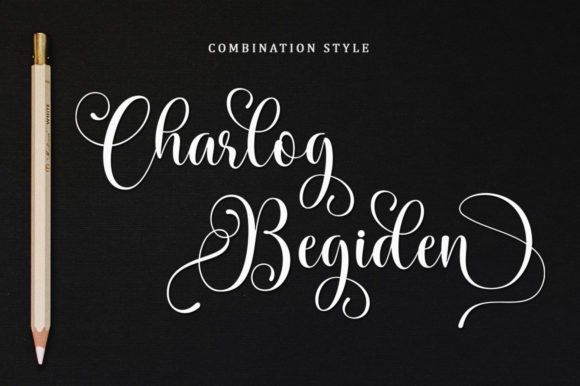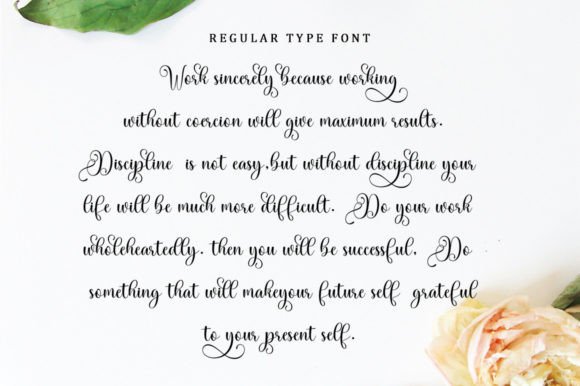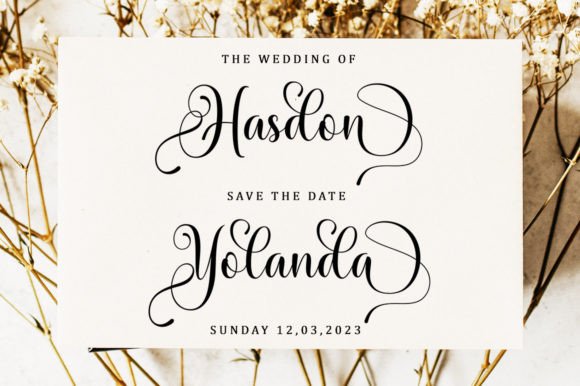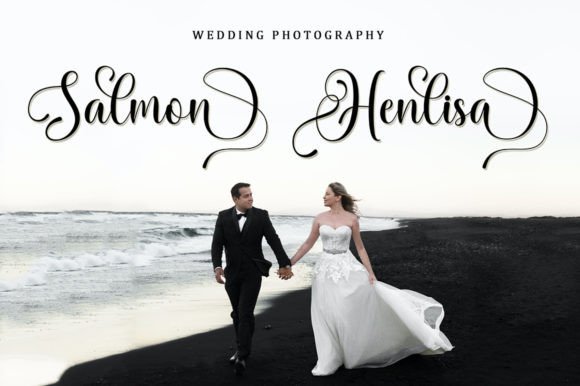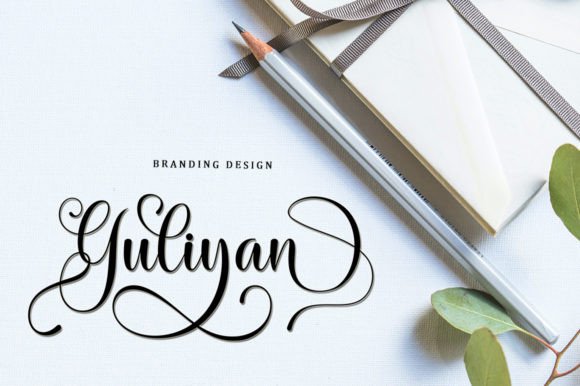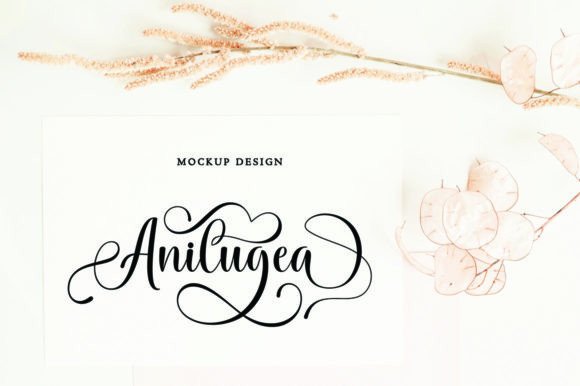
Discover the Elegance of Andigen Font: Elevate Your Designs with a Timeless Handwritten Style
Are you on the hunt for a font that exudes elegance and sophistication? Look no further than the Andigen Font. This stunning, flowing handwritten font is designed to add a touch of refinement to your favorite projects. With its incredibly distinct and timeless style, Andigen is sure to capture your heart and inspire your creativity.
The Characteristics of Andigen Font
Andigen Font boasts a unique blend of fluidity and precision, making it perfect for a wide range of design applications. Its elegant touch is characterized by:
- Flowing Lines: Andigen’s handwritten style features smooth, connected letters that create a sense of movement and fluidity.
- Elegant Touch: The font’s refined and sophisticated feel makes it ideal for projects that require a high level of elegance, such as luxury branding, wedding invitations, and high-end product packaging.
- Distinct Style: Andigen’s unique character set and timeless design ensure that your projects stand out from the crowd and leave a lasting impression.
Why Choose Andigen Font?
With so many fonts available, why should you choose Andigen for your next project? Here are just a few compelling reasons:
- Versatility: Andigen Font is perfect for a wide range of design applications, from digital projects like social media graphics and website headers to print materials like brochures, posters, and business cards.
- Easy to Read: Despite its elegant and flowing style, Andigen Font remains highly legible, making it suitable for use in body text as well as headlines.
- Unique and Memorable: Andigen’s distinctive style ensures that your projects will be remembered long after they’ve been seen.
How to Use Andigen Font in Your Designs
Ready to fall in love with Andigen Font and incorporate it into your designs? Here are some tips to get you started:
- Pair it with Other Fonts: Combine Andigen Font with complementary fonts to create visually appealing contrast and hierarchy in your designs.
- Experiment with Colors: Andigen Font looks stunning in a range of colors, from rich jewel tones to metallic finishes. Don’t be afraid to experiment and find the perfect combination for your project.
- Play with Texture and Patterns: Add depth and interest to your designs by incorporating texture and patterns that complement the elegant style of Andigen Font.
Andigen Font in the World of Design
Andigen Font is more than just a beautiful typeface – it’s a tool for designers and crafters to bring their creative visions to life. Whether you’re a:
- Graphic Designer: Use Andigen Font to add a touch of sophistication to your branding, advertising, and marketing materials.
- Wedding Planner: Create stunning wedding invitations, stationery, and decor with Andigen Font’s elegant and romantic style.
- Crafter: Add a personal touch to your handmade projects, such as journals, cards, and gift tags, with Andigen Font’s unique and whimsical feel.
In conclusion, Andigen Font is a truly special typeface that offers a unique blend of elegance, sophistication, and timeless style. Whether you’re a designer, crafter, or simply someone who appreciates beautiful typography, Andigen is sure to inspire your creativity and elevate your projects to new heights. So why wait? Fall in love with Andigen Font today and discover a world of limitless design possibilities!